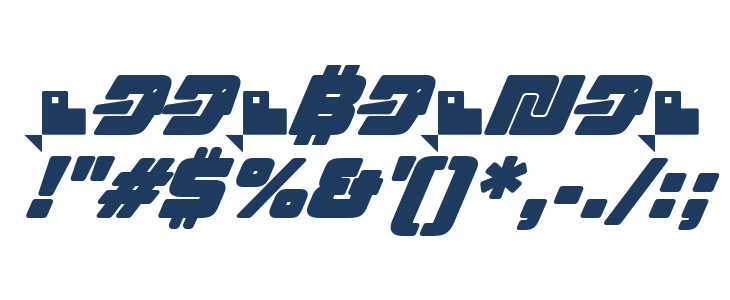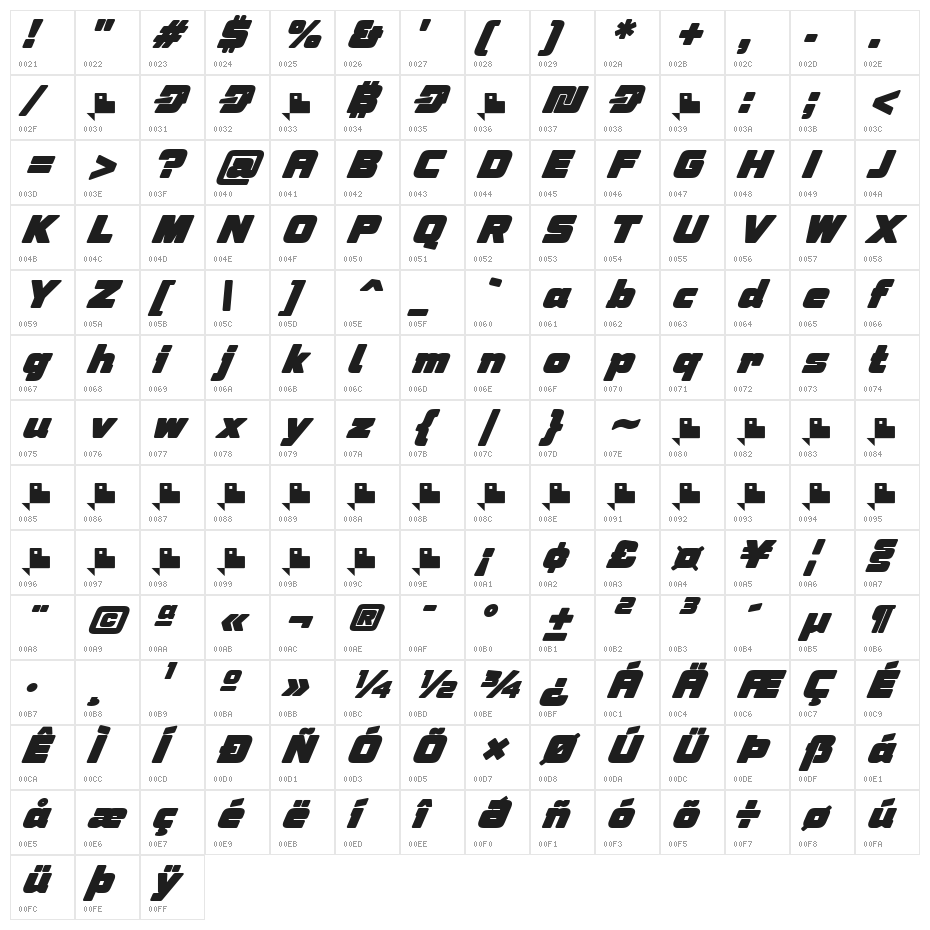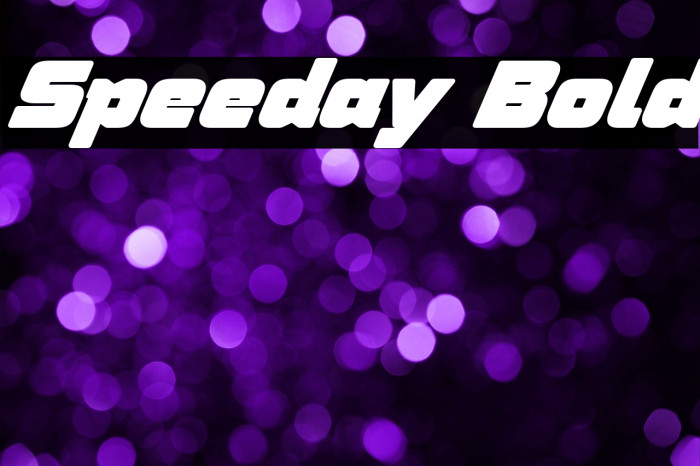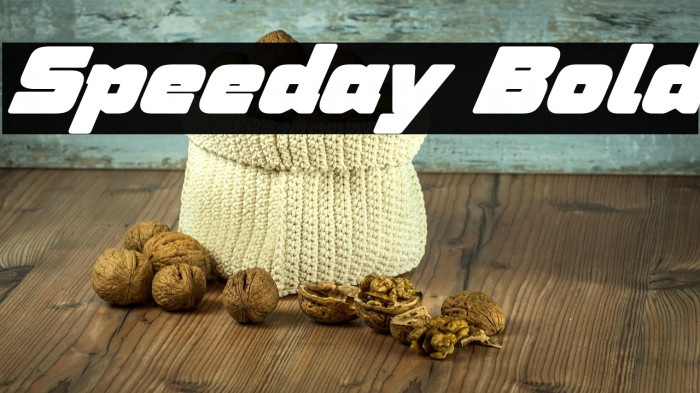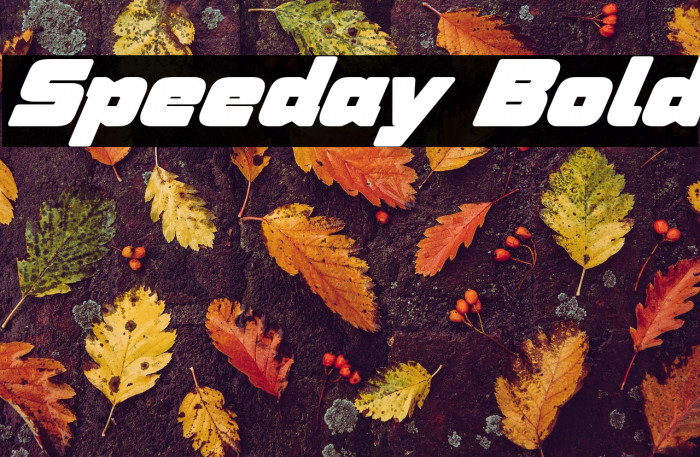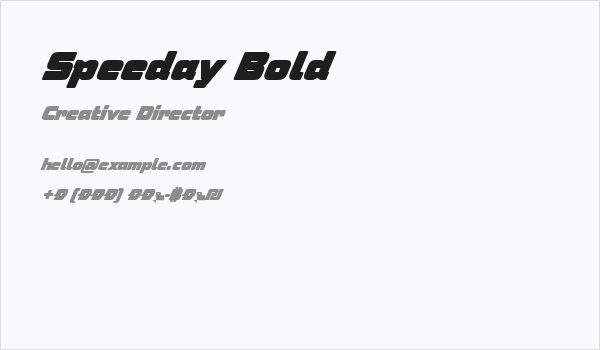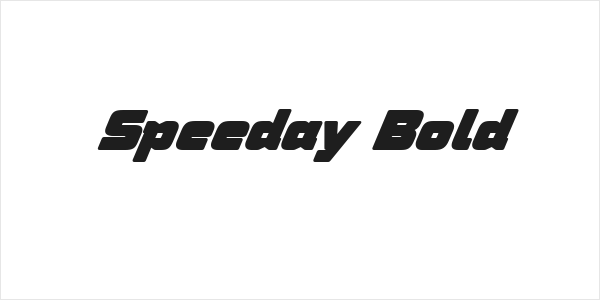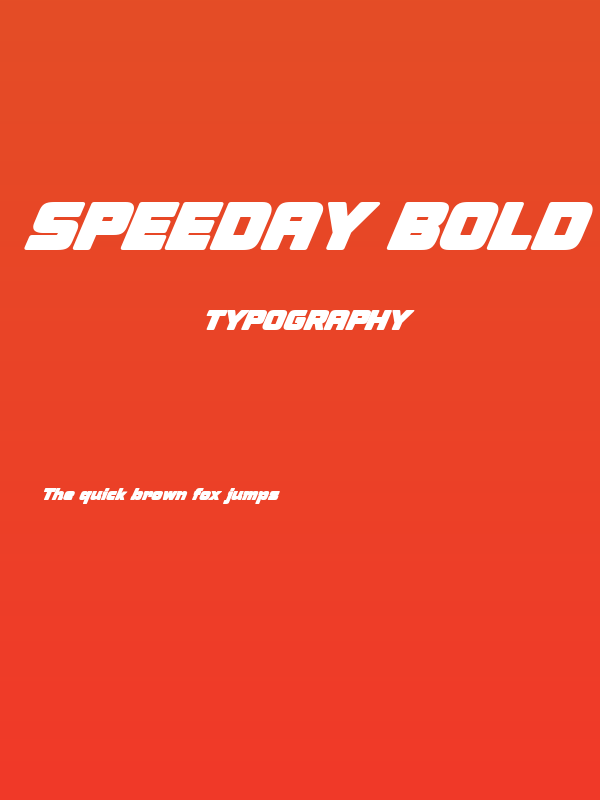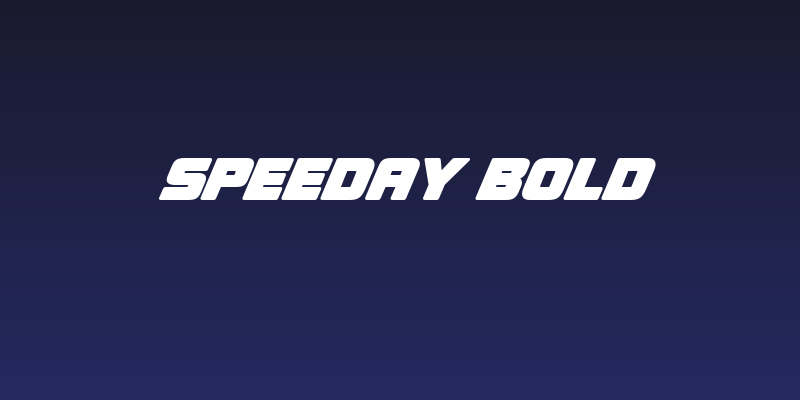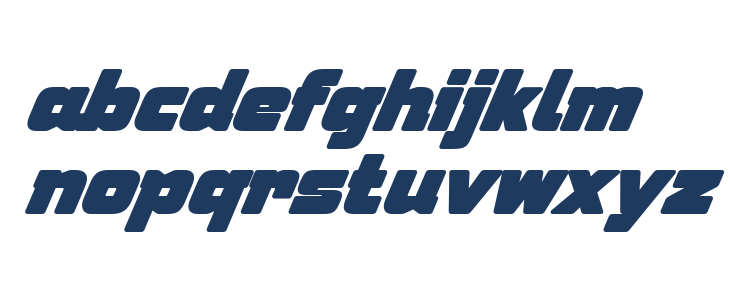
Speeday Bold Font
Speeday Bold Description
This bold and dynamic font features a strong, angular design with a forward-leaning slant, giving it a sense of speed and motion. The uppercase and lowercase letters are crafted with thick strokes and sharp edges, creating a powerful and impactful appearance. The numbers and special characters maintain the same boldness and angularity, ensuring consistency across all glyphs. This font's design is reminiscent of racing or automotive themes, making it ideal for projects that require a sense of energy and movement. The character spacing is tight, enhancing its compact and cohesive look.
| Use Case | Logos, Headlines |
| Proposed Projects | Ideal for automotive branding, sports team logos, dynamic posters, and any project needing a sense of speed. |